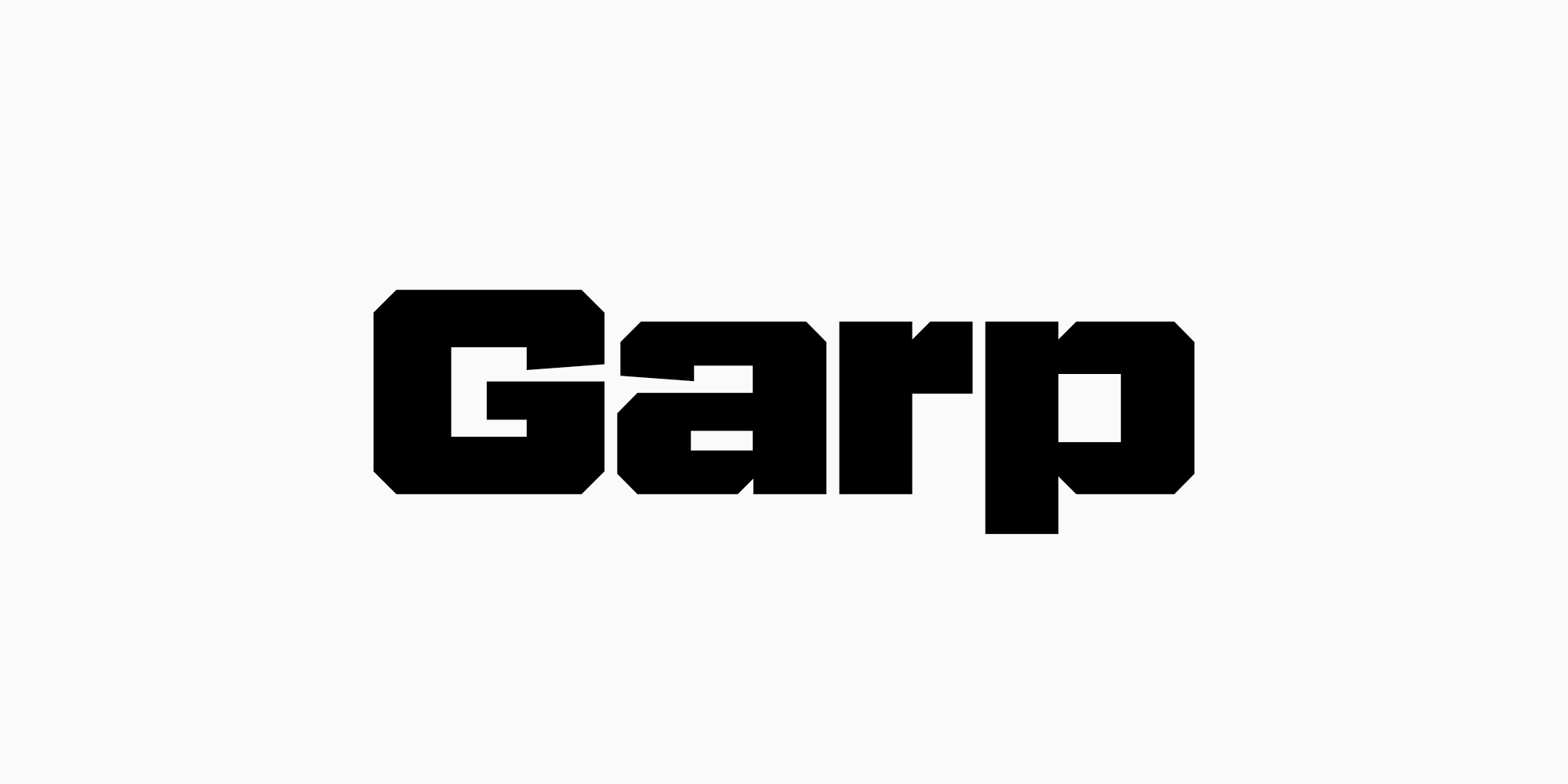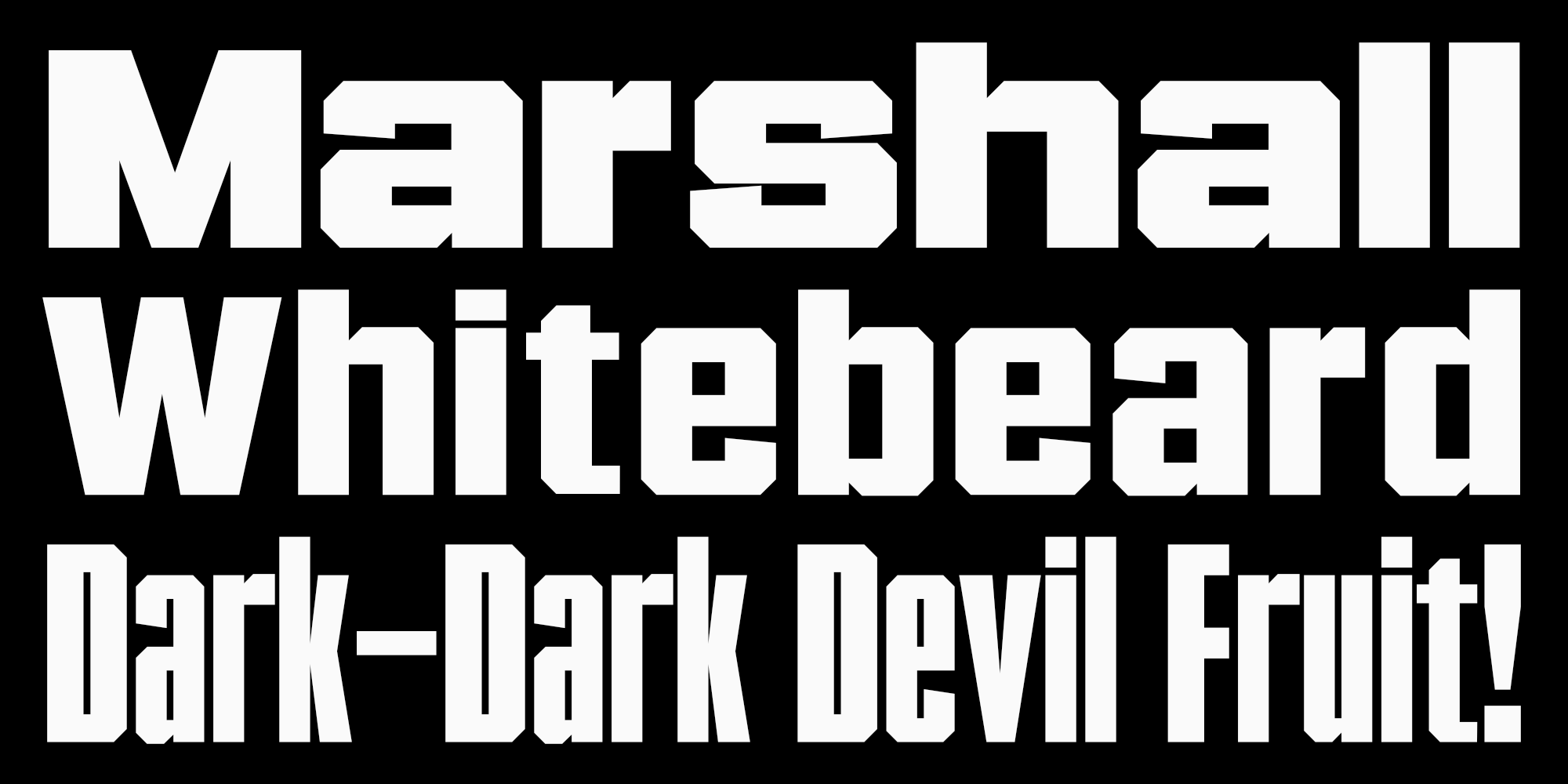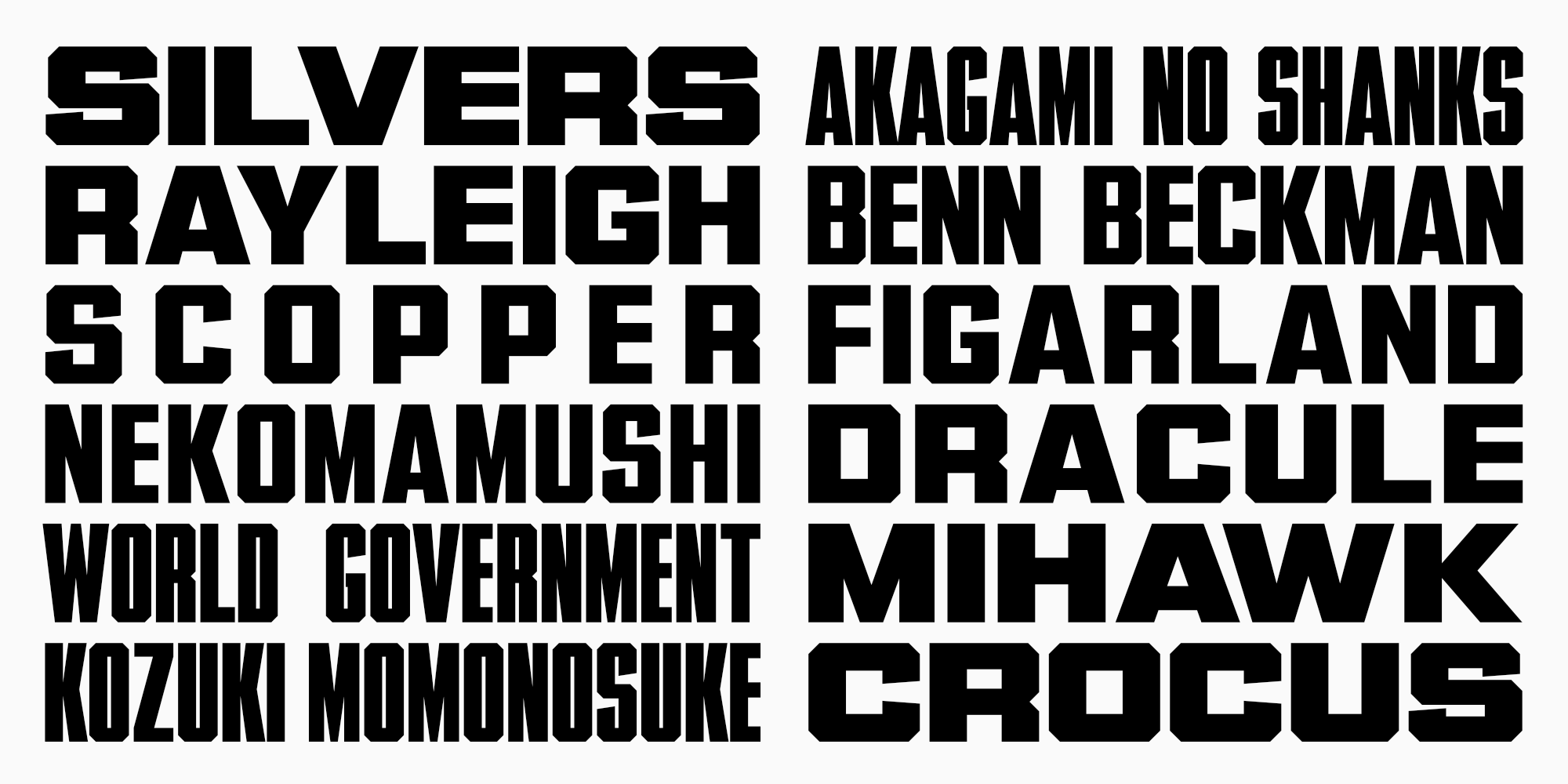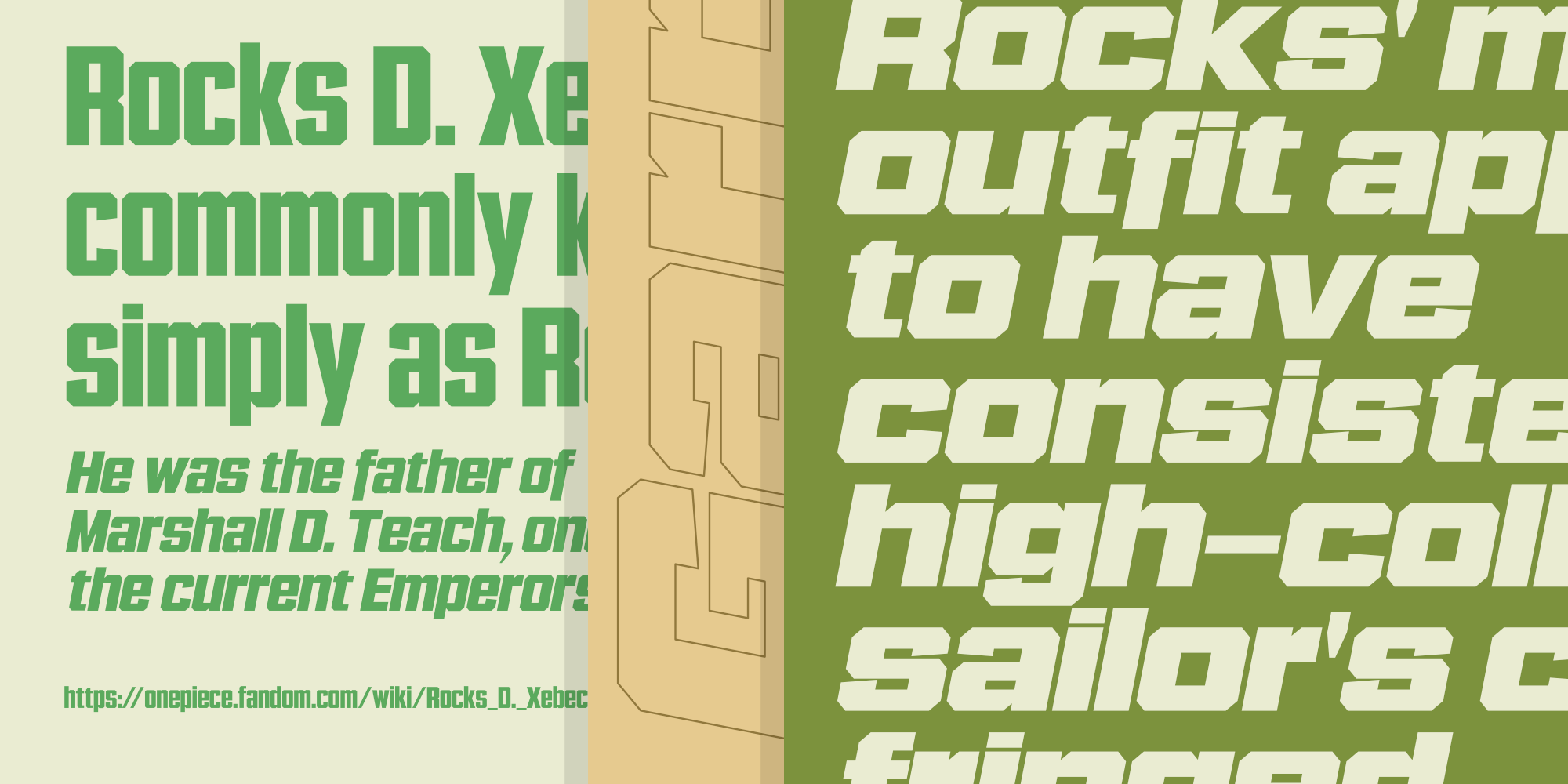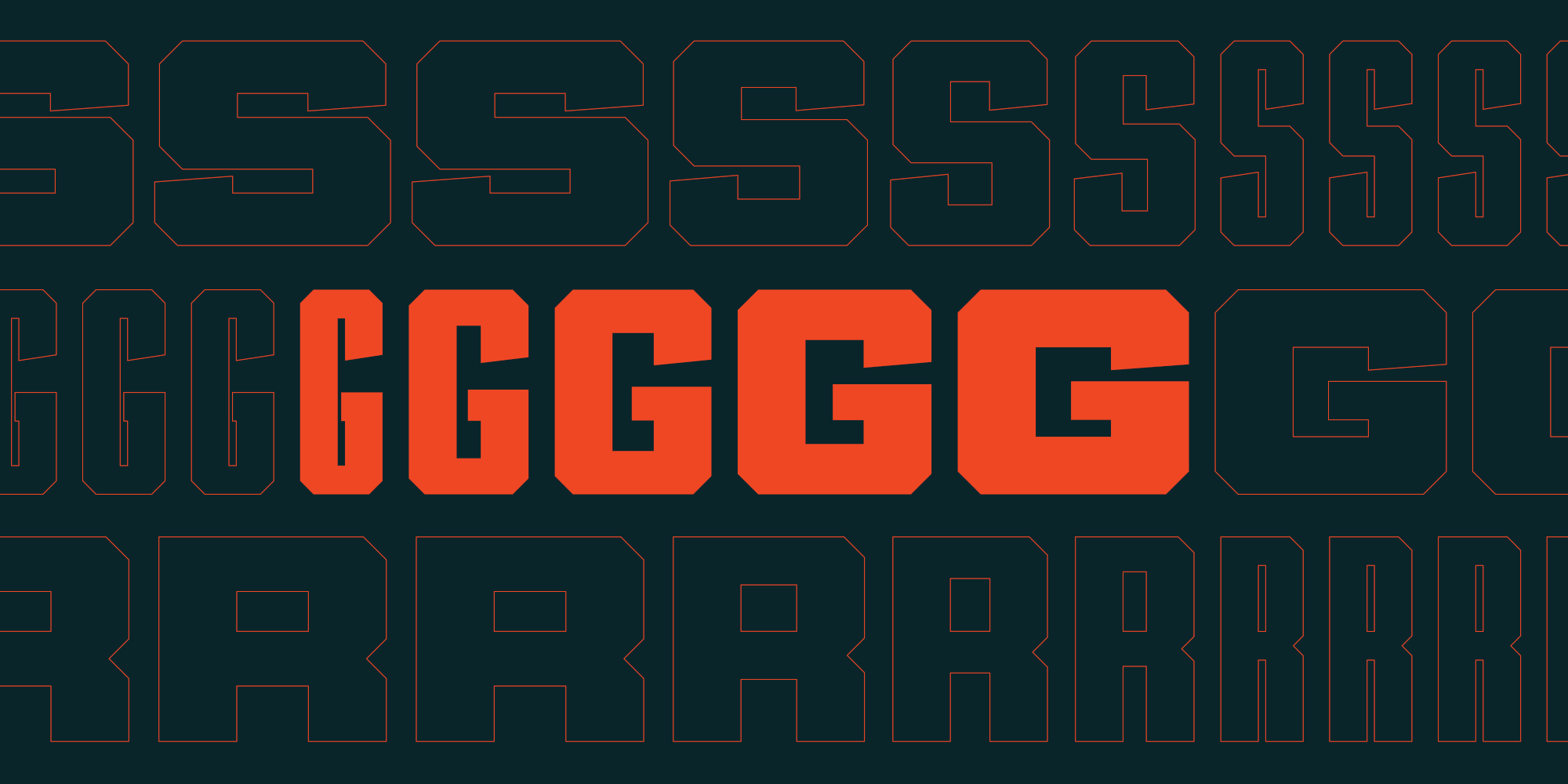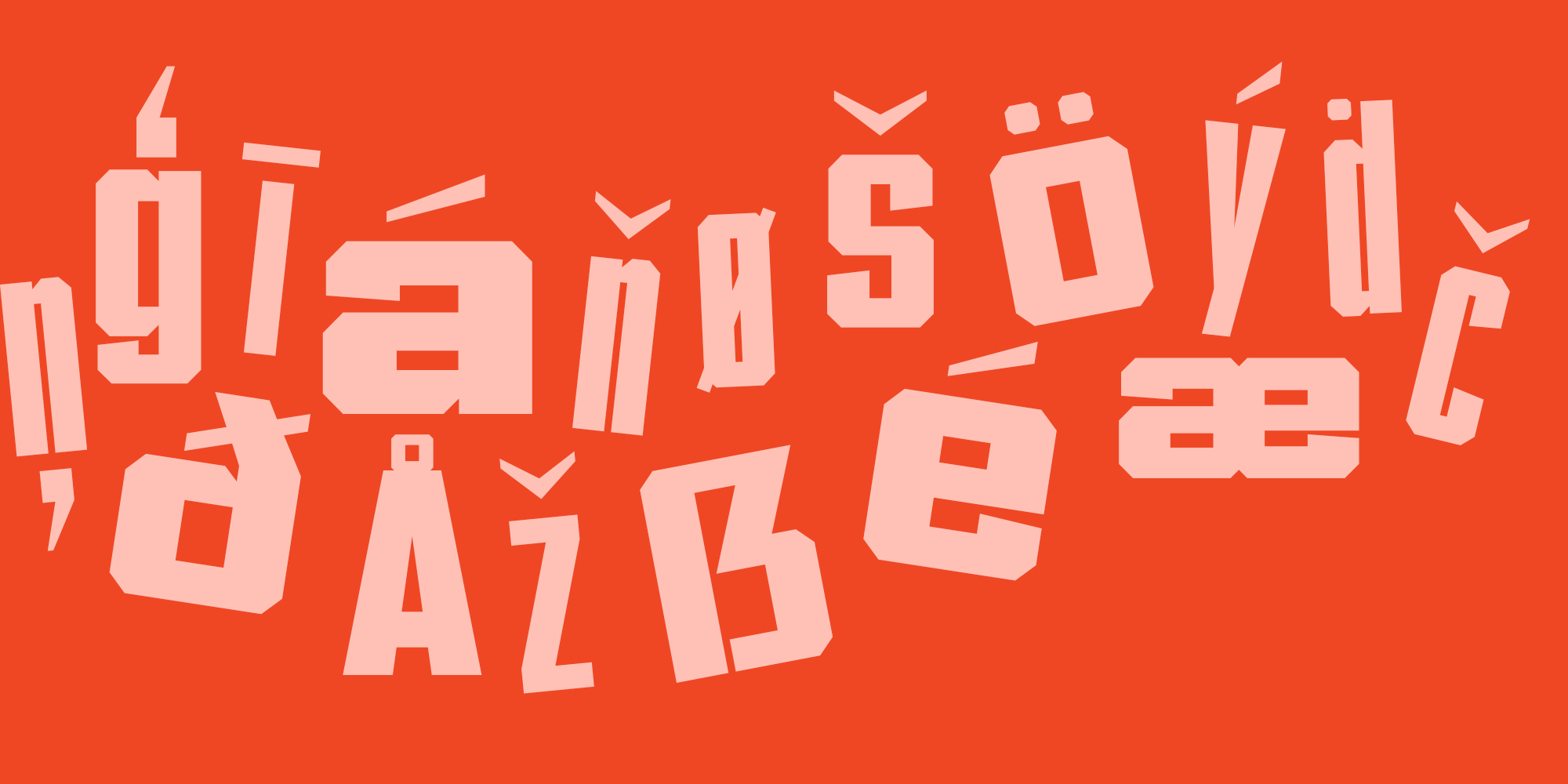
- Garp Sans Modern Sport Font
Garp Sans is a bold, modern sans serif font family built for speed, style, and versatility. With five unique widths—Condensed, Narrow, Compaq, Normal, and Wide—it flexes between tight and tall or wide and commanding, making it perfect for everything from automotive branding and tech startups to college posters and vintage western throwbacks.
Inspired by a mix of retro signage, athletic jerseys, and futuristic UI design, Garp Sans carries a strong geometric backbone with a clean, professional polish. Think racing stripes, cowboy boots, corporate boldness, and kids cereal boxes—all in one cohesive family.
Whether you’re working on sport graphics, baseball merch, food packaging, or technology apps, Garp Sans delivers that premium, standout vibe. It’s your go-to heading font when you need something tall, tough, and full of personality.